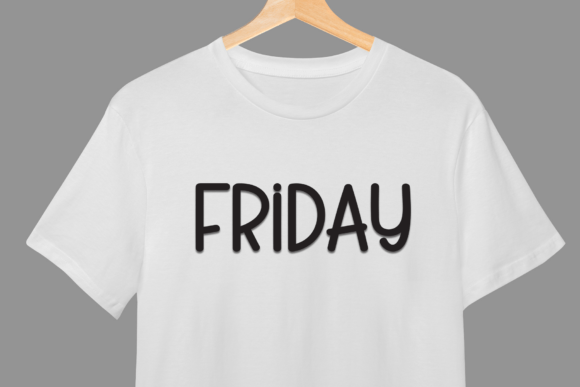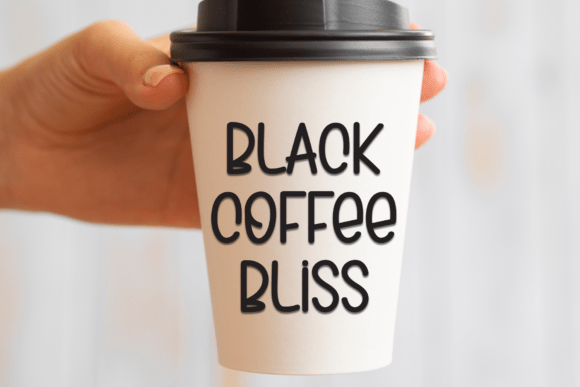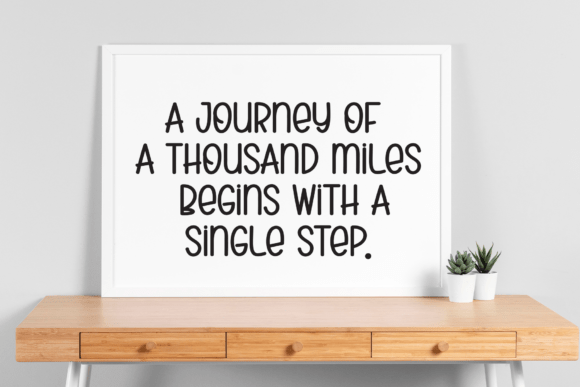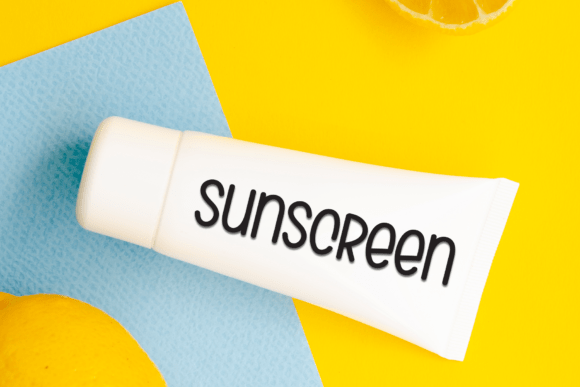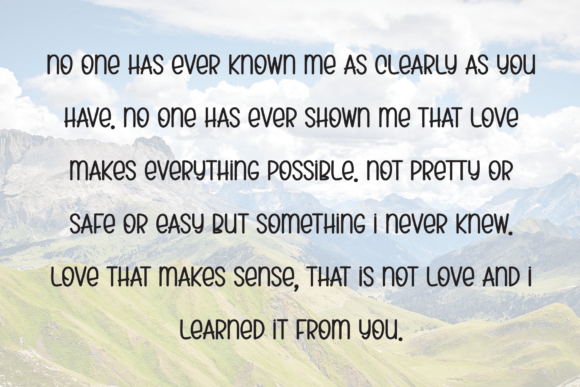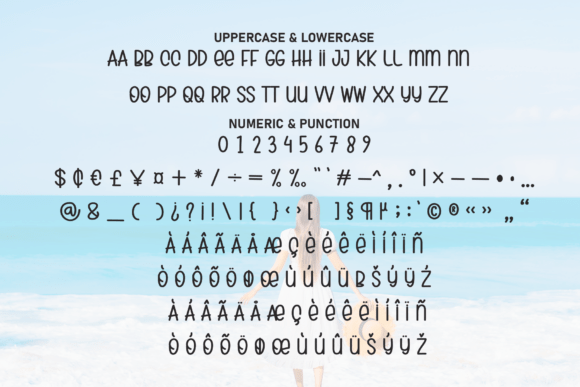
Discover the Charm of Beauty Beach Font: Elevate Your Designs with a Relaxed yet Modern Twist
In the world of typography, finding the perfect font that balances style with readability can be a daunting task. However, if you’re on the hunt for a typeface that exudes a laid-back vibe while maintaining modern appeal, look no further than the Beauty Beach Font. This neat and casual display font has been making waves in the design community for its unique ability to blend clarity with a relaxed, approachable feel.
The Essence of Beauty Beach Font
Beauty Beach Font is characterized by its clean lines and friendly letterforms, making it an ideal choice for a variety of design projects. Whether you’re working on headlines, posters, packaging, or branding that aims to feel modern yet laid-back, this font is sure to bring a touch of personality to your work. Its balanced structure ensures that your message is conveyed clearly, while its playful energy adds a dynamic flair that can set your designs apart.
Why Choose Beauty Beach Font?
So, what sets Beauty Beach Font apart from other typefaces? Here are a few reasons why designers and crafters are falling in love with this versatile font:
- Modern yet Laid-Back: Beauty Beach Font strikes the perfect balance between modern appeal and a relaxed vibe. This makes it incredibly versatile for a wide range of projects, from trendy branding to casual event posters.
- Readability and Style: One of the font’s standout features is its ability to deliver style without compromising on readability. The clean lines and well-spaced letterforms ensure that your message gets across clearly, making it perfect for both headlines and body text.
- Playful yet Balanced: The playful energy of Beauty Beach Font adds a unique charm to any design. However, it does so in a balanced way that prevents the font from feeling overwhelming or too whimsical.
- Versatility: From fashion and beauty branding to event invitations and product packaging, Beauty Beach Font can adapt to a variety of design needs. Its friendly and approachable vibe makes it suitable for brands that want to connect with their audience on a more personal level.
Applications of Beauty Beach Font
The applications of Beauty Beach Font are vast and varied. Here are some of the most popular uses:
- Branding and Logos: For businesses looking to project a modern yet friendly image, Beauty Beach Font can be a great choice for logos and brand names.
- Posters and Flyers: The font’s playful yet clear nature makes it perfect for posters and flyers that need to grab attention while conveying information.
- Packaging: For product packaging that stands out on shelves, Beauty Beach Font can add a touch of modern simplicity and charm.
- Digital Media: Whether it’s social media graphics, website headers, or email newsletters, this font can enhance your digital content with its stylish yet approachable feel.
Tips for Using Beauty Beach Font
To make the most of Beauty Beach Font, consider the following tips:
- Pair it with Contrasting Fonts: For maximum impact, pair Beauty Beach Font with a more serif or script font to create contrast and visual interest.
- Experiment with Colors: While the font itself is versatile, experimenting with different colors can further enhance its appeal. Pastel shades, vibrant hues, and neutral tones can all work well depending on the project.
- Adjust Letter Spacing: For certain projects, adjusting the letter spacing can add to the font’s charm. A slightly increased spacing can emphasize its playful nature.
Beauty Beach Font offers a refreshing take on modern typography, combining the best of both worlds: the clarity of clean lines and the charm of a relaxed, approachable vibe. Its versatility, readability, and stylish appeal make it an excellent choice for designers and crafters looking to elevate their projects. Whether you’re aiming for a modern edge or a laid-back feel, Beauty Beach Font is sure to bring a touch of personality and sophistication to your designs.
So why wait? Dive into the world of Beauty Beach Font and discover how this beautiful typeface can transform your designs, making them more engaging, stylish, and effective.